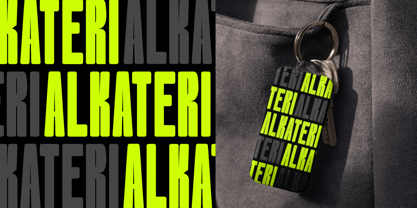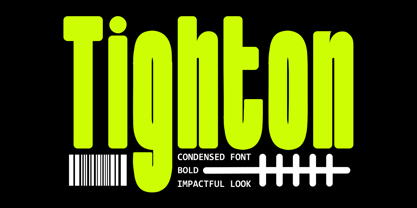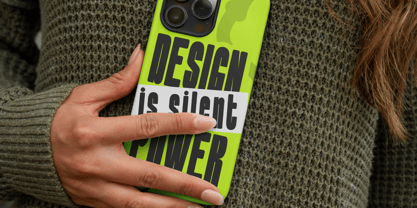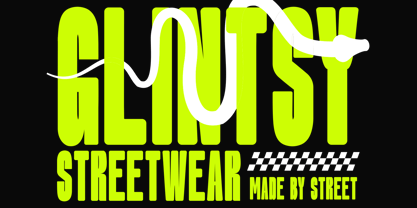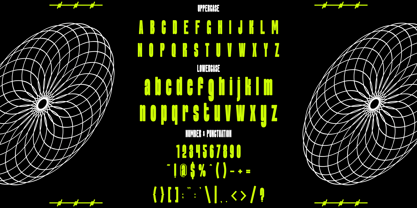
Tighton
by Shanaf
The Tighton Font Family was designed by Yesie Erma Yunita and published by Shanaf. Tighton contains 2 styles and family package options. More about this family
Tighton Condensed Font delivers a powerful and commanding presence through its tall, narrow, and heavy-weight letterforms. The condensed proportions emphasize vertical height while maintaining a strong and compact rhythm, making it highly effective for impactful layouts. Each character carries a bold and geometric construction, providing clarity and strength without unnecessary details. This font is designed with a clean, modern style that resonates with urban aesthetics and contemporary branding needs. The overall look of Tighton Condensed Font projects confidence, precision, and bold simplicity, perfectly suited for designers who want a striking visual tone. Its versatile appeal makes it suitable for logos, branding, poster headlines, film titles, magazine covers, packaging, and apparel designs. The condensed structure allows for more content in tight spaces while still retaining a dramatic visual impact. Whether used for a sleek streetwear identity, dynamic business branding, or bold advertising, this font adapts seamlessly to different creative contexts. With Tighton Condensed Font, every word gains a strong voice, ensuring attention is captured instantly. Designers seeking a modern condensed typeface that blends boldness with elegance will find this font an essential addition to their toolkit.
Designers: Yesie Erma Yunita
Foundry: Shanaf